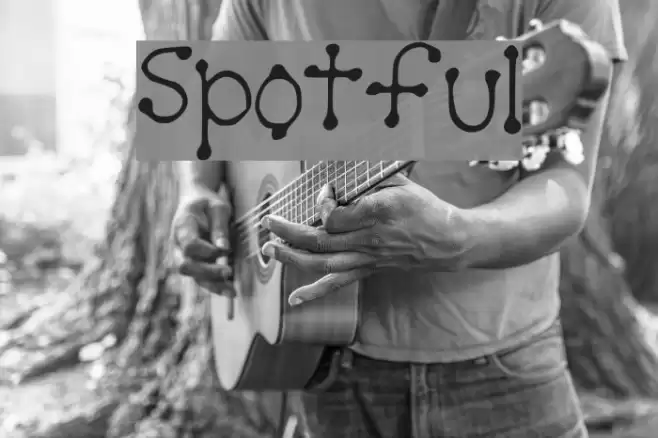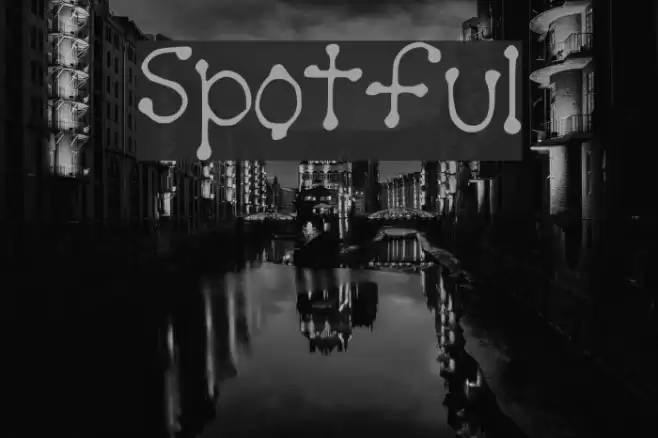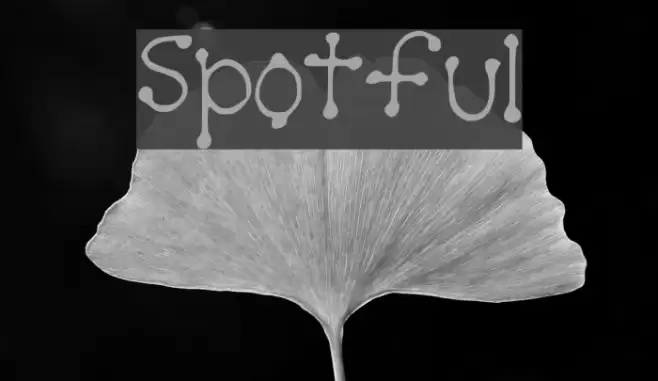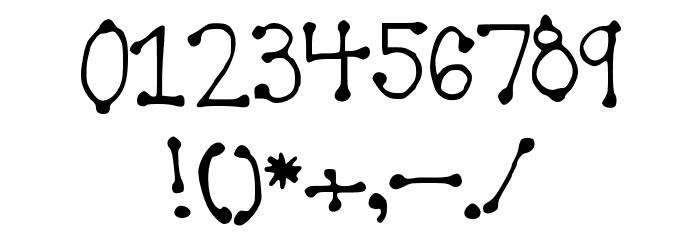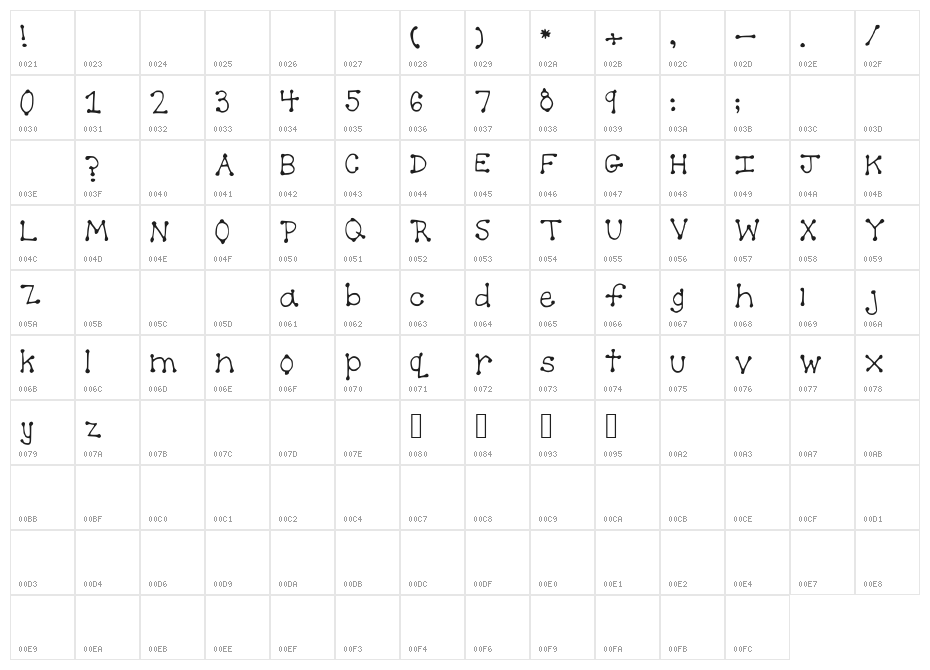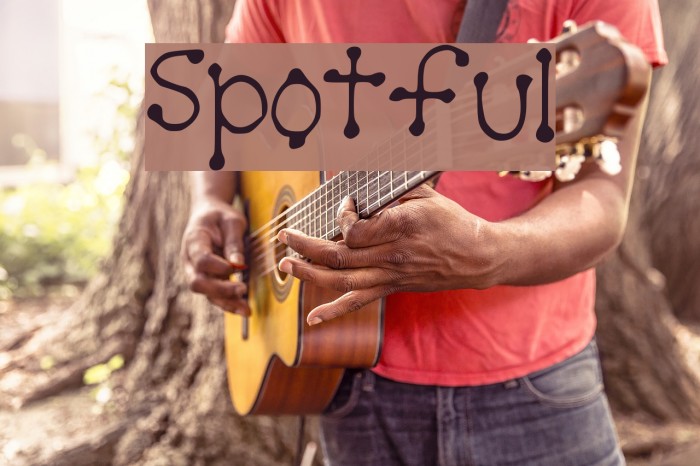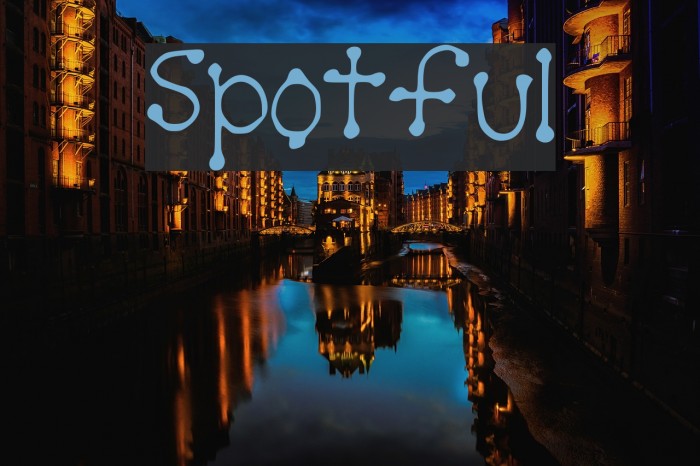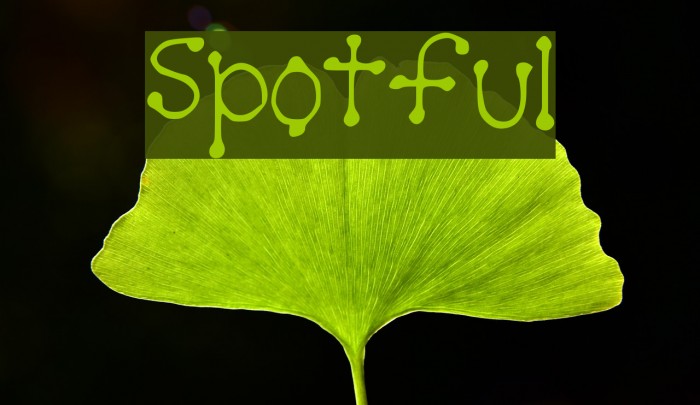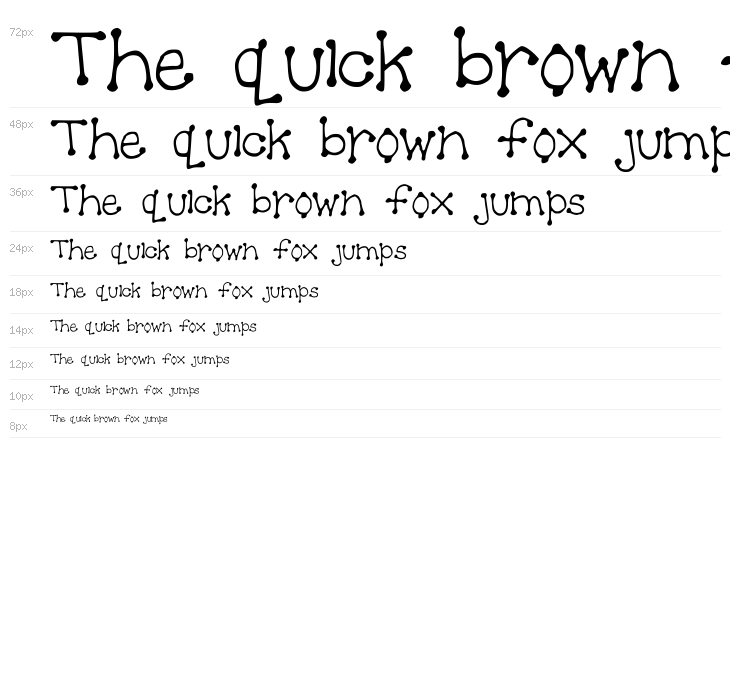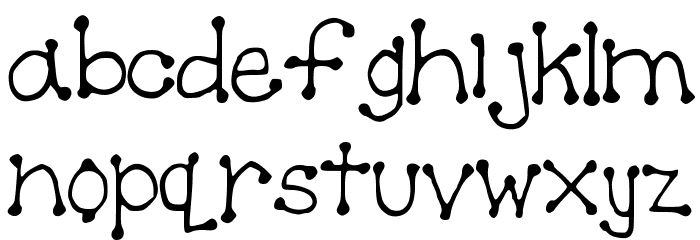
Spotful Font
Spotful Description
This playful and whimsical font features a unique design with rounded, bubble-like terminals and a hand-drawn appearance. Each character is crafted with a sense of fun and creativity, making it ideal for projects that require a lighthearted and informal touch. The font maintains a consistent stroke width, contributing to its approachable and friendly feel. Its distinctive style is characterized by irregular shapes and a slightly uneven baseline, enhancing its casual and artistic vibe. The font is versatile, suitable for various creative applications where a touch of personality is desired.
A playful, hand-drawn font with bubble-like terminals and a whimsical style from Uncategorized fonts.
- Proposed Projects: Ideal for children's books, greeting cards, playful branding, and creative posters.
- Use Case: Logos, Headlines, Creative projects